Introducing, Distrela is a romantic serif family that consists of 6 weights from ExtraLight to ExtraBold. Distrela comes with lots of alternates and ligatures characters that are specially designed with a romantic theme to make your design projects look more beautiful such as logo design, wedding, branding, poster, magazines, labels, merchandise, invitation, presentation, advertising and so much more!
This is a font made with cool transparent textures and has ligatures, also has a-z alternates. The SVG font requires a version of Photoshop CC 2017 or Adobe Illustrator CC 2018 (or newer) to use.
A nostalgic font referencing the 1920's and 1930's during the Golden age of Hollywood, art moderne and the rise of luxury items . Highly geometric with wild variations in glyph widths that demand attention. Smart Deco is a display font with clean simple lines, tall ascenders and expressive Capitals that descend below the baseline of the lower case letters. The intention is to create a sleek and anti-traditional elegance that symbolizes the sophistication of a by-gone era.
Retro Sanderia offers beautiful typographic harmony for a diversity of design projects, including logos & branding, social media posts, advertisements & product designs. 2 Style: Regular & shadow. Happy Creating!
A unique sans serif typeface created from geometric shapes like perfect circles and straight stems with half-rounded endcaps. Simple, yet complex, this typeface is akin to other classics, like Avant Garde and Bauhaus, in that it can be used in modern, friendly or futurist designs. Whether your intent is serious or playful, the versatility of Robox has you covered.
A handcrafted font with extremely narrow letters, suitable for headings, logos, brands, menus, invitations, but can also be used with lowercase letters. Designed 2022 by Joachim Frank Germany.
Moore Great Font
This elegant and beautiful serif font has delicate curves and serifs, giving it a timeless look. Perfect for titles and headlines, Moore Great font will add a touch of grace and sophistication to your designs. This font is PUA encoded which means you can access all glyphs and swashes effortlessly!
Woodkit is a playful fixed-width display series of typefaces inspired by wood type. Woodkit is a type system inspired by wood type and letterpress consisting of three families — Solid, Print and Reprint, each with six distinct styles covering various alphabet designs, components and miscellaneous ornaments. Woodkit supports Latin, Cyrillic and Greek scripts.
Introducing, Vonder Hills . A layered typeface which is inspired by vintage lettering sign and art. While this font has a victorian touch, it still looks bold and solid. Very suitable for for headline, logotype, apparel, invitation, branding, packaging, advertising etc. It also comes in uppercase, lowercase, punctuations, symbols & numerals, stylistic set alternate, ligatures, etc also support multilingual and already PUA encoded. We highly recommend using a program that supports OpenType features and Glyphs panels like many of Adobe apps and Corel Draw, so you can see and access all Glyph variations.
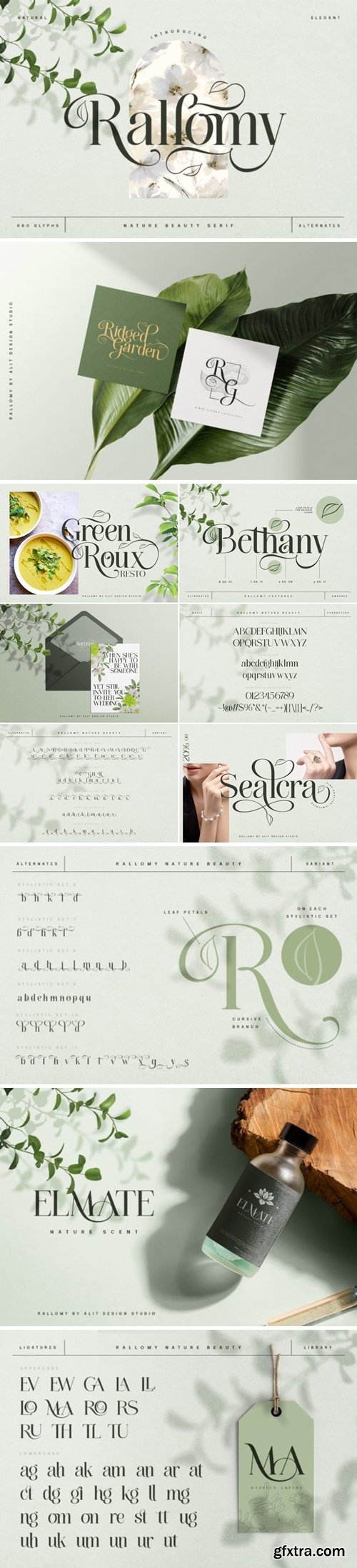
Rallomy Font
Rallomy is a serif font designed with the concept of nature’s beauty in mind. It has a dynamic alternating swash featuring a leaf symbol and a ligature system that ensures a harmonious combination of characters. This font is ideal for design projects that aim to capture the essence of nature.
Atlantis Font
Atlantis is a lovely and timeless handwritten font. It is the best choice for creating eye-catching logos, branding, and quotes. Every letter has a unique and beautiful touch, which will make your design come alive!
Masitro Font
Masitro is a rounded flare serif display font. Its distinct and well-balanced letters make this font a masterpiece. Fall in love with its incredibly versatile style and use it to create spectacular designs!
Karviet Font
Karviet is a graceful and eye-catching sans-serif font with clean lines, subtle curves, and refined details. Its modern and minimalistic style adds an air of sophistication to any project. Ideal for creating an elegant and attractive look.
Glories Font
Elegant, graceful and timeless. Glories is a versatile font with timeless classic appeal, more than a dozen alternatives & ligatures, multilingual support and great precision for you to incorporate into your designs! Each letter has been hand drawn and crafted with great care. The various weights provide a variety of options that will help you find the best typographical character for your project. Perfect for logos, notes, posters, t-shirts, stickers, posters, mugs, labels, etc.
Gaslrile Font
Proudly present Gaslrile Typeface , created by Storytype, A serif modern and classic typeface that has own unique style & modern look. This typeface is perfect for an elegant & luxury logo, book or movie title design, fashion brand, magazine, clothes, lettering, quotes, and so much more.
Melkia Starlight Font
hello !! this time I released a new product called “Melkia Starlight” which has an elegant and modern style. This font is suitable for invitation cards, decorations, clothing products, greeting cards and others.